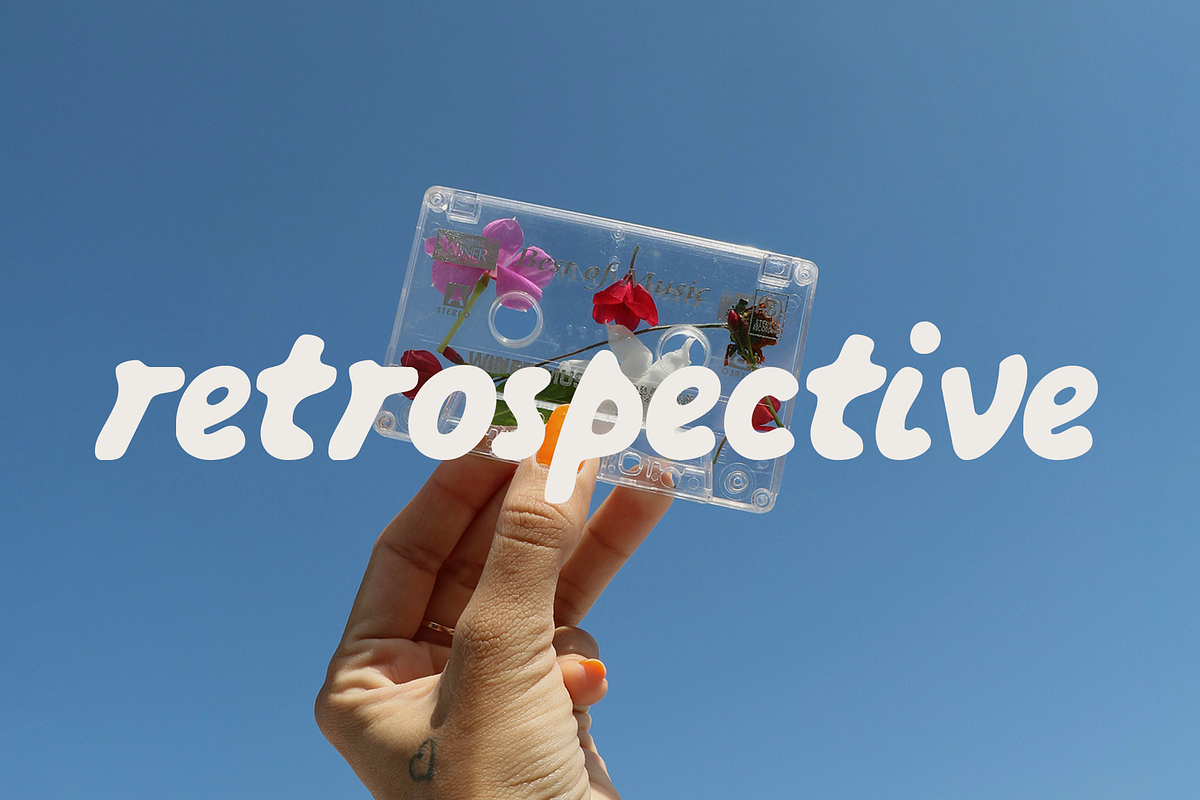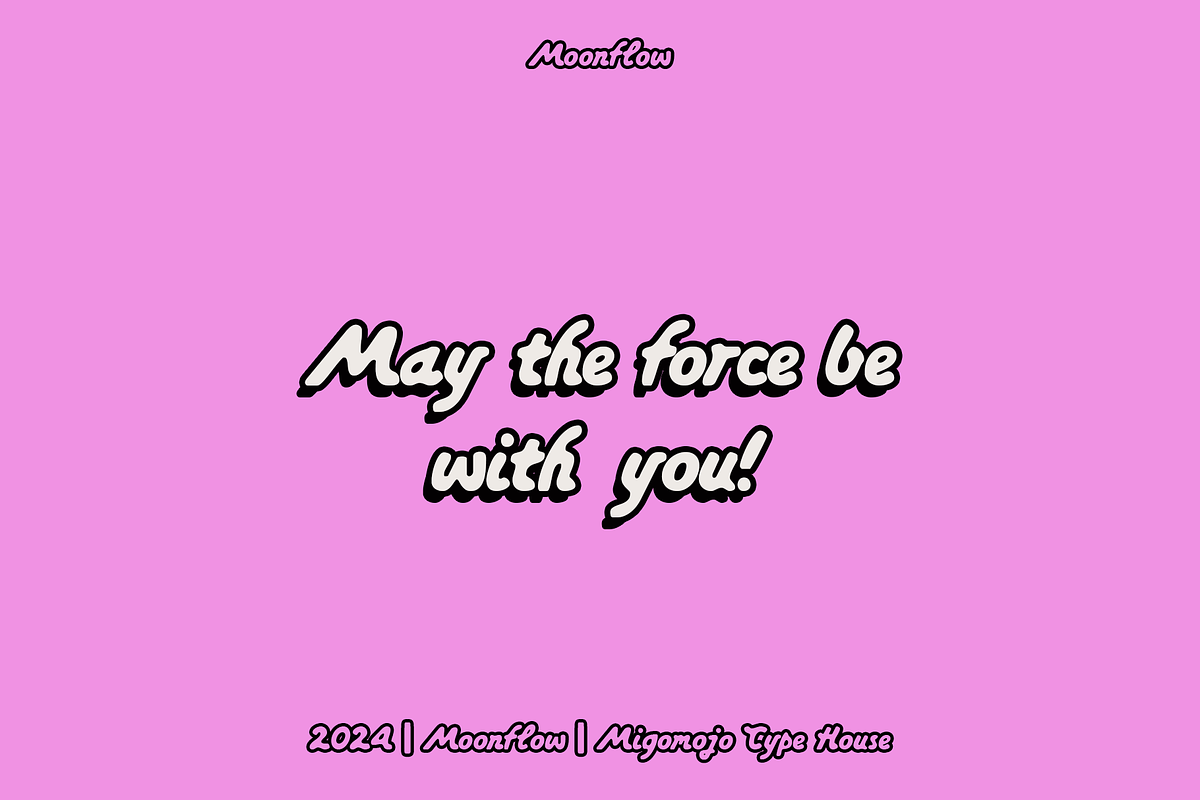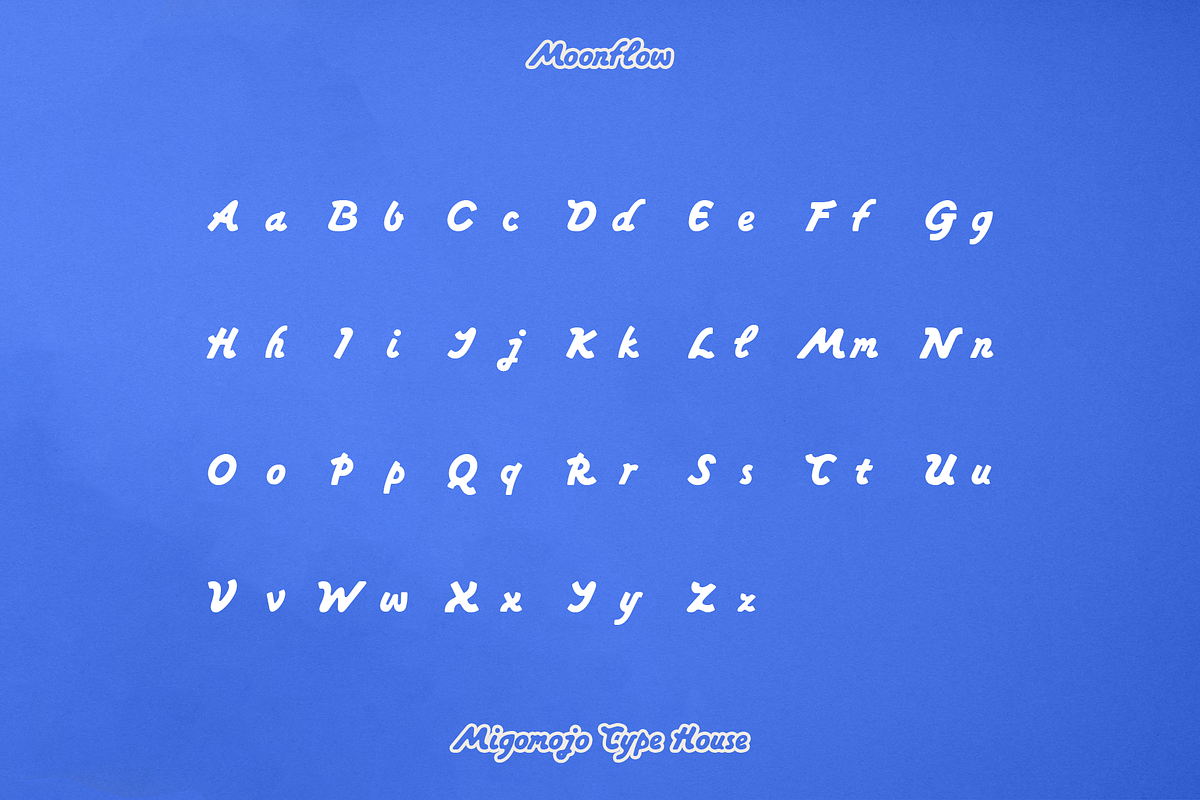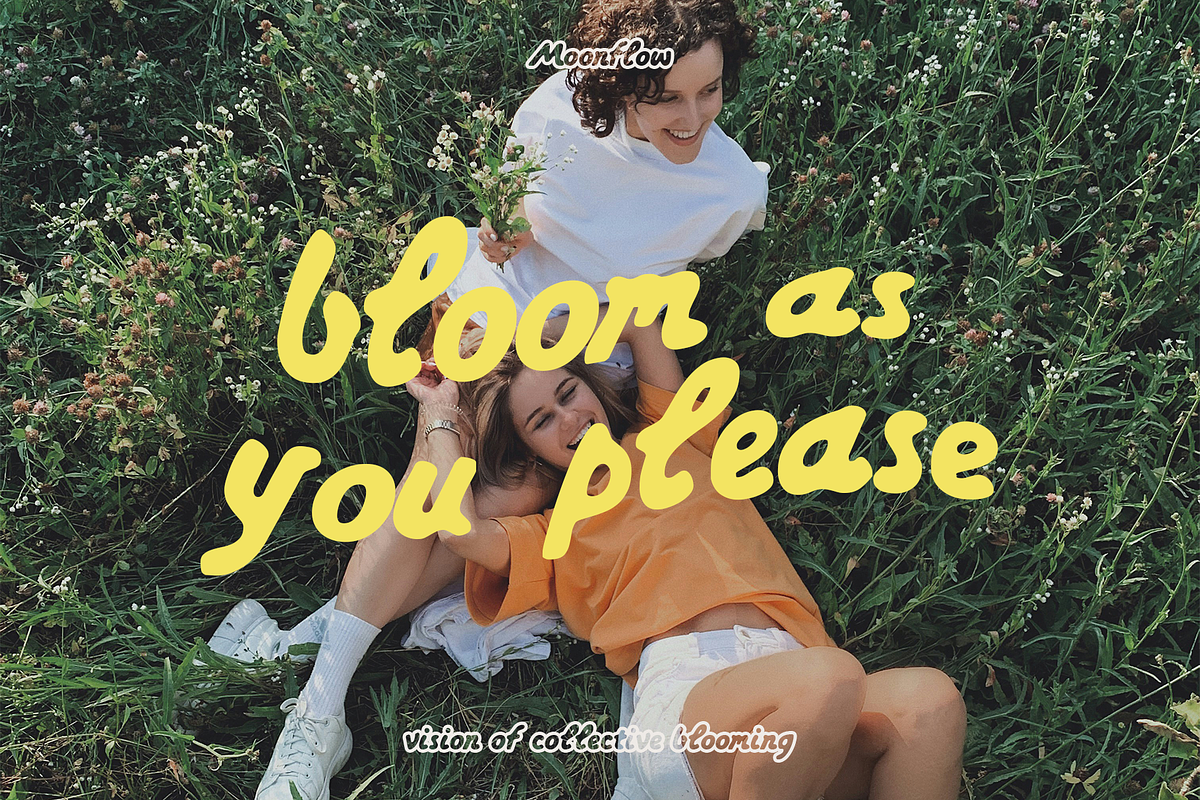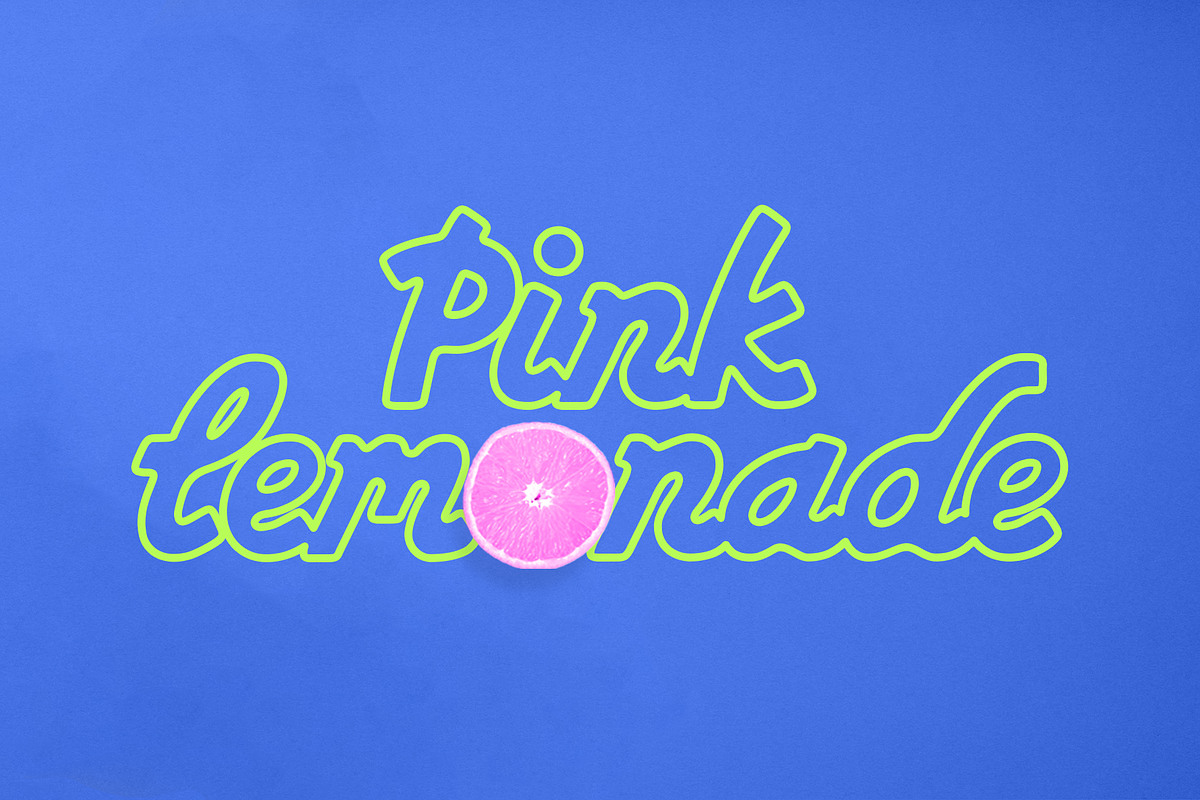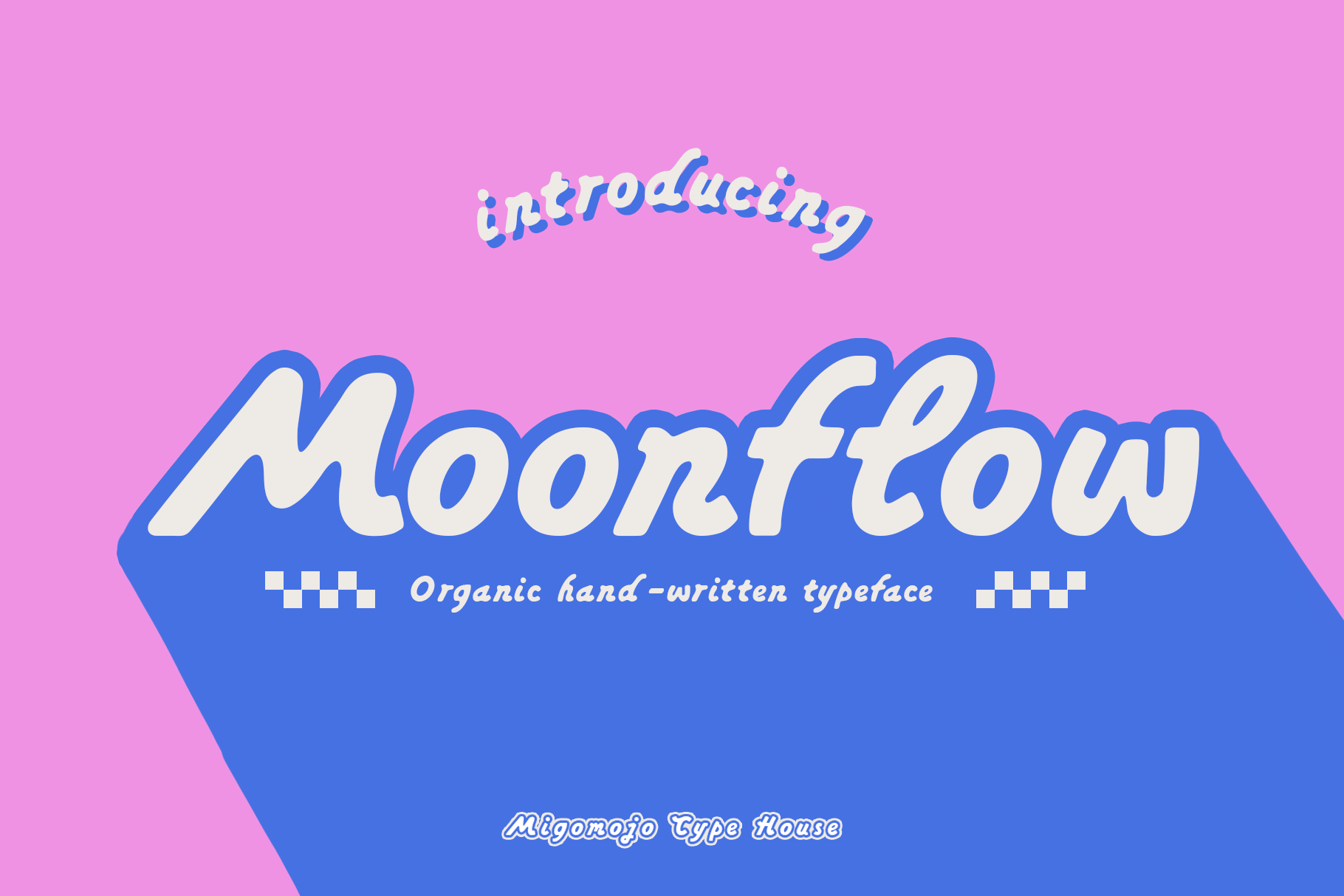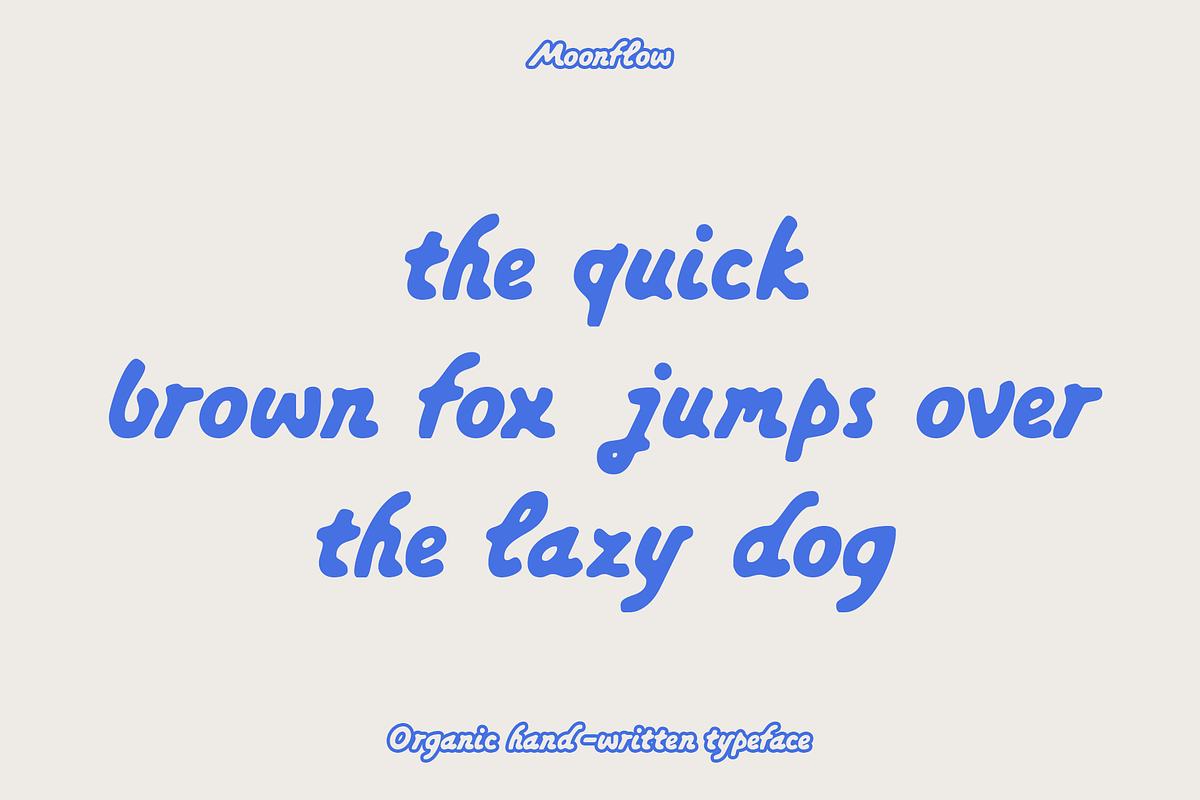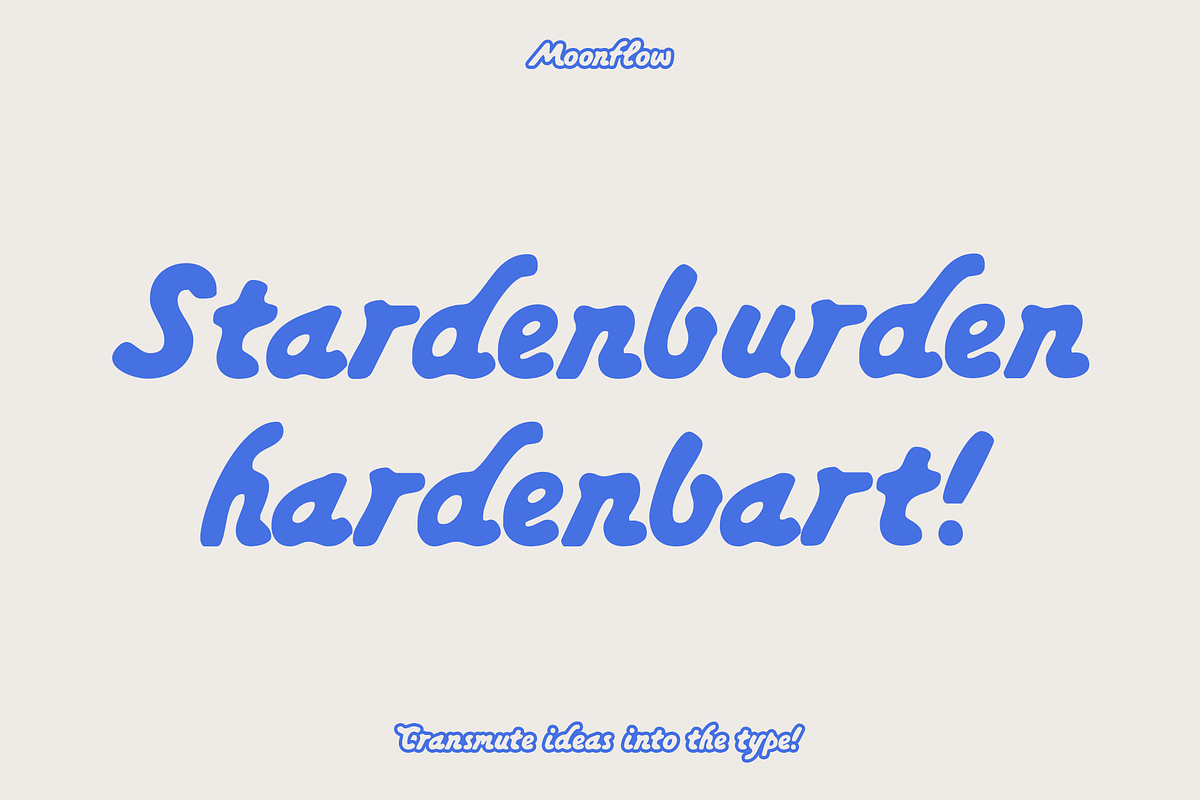
Moonflow Typeface
Introducing Moonflow, an organic hand-written typeface with a retro twist. Captures the essence of timeless youthful script and cursive styles with a touch of pop retrowave aesthetics and a sense of nostalgia. Moonflow Font is available with 403 glyphs, 2 variety of style and multilingual support. Moonflow is perfect for Headline, album covers, posters, digital design, brand collateral and brand identities. Cheers!